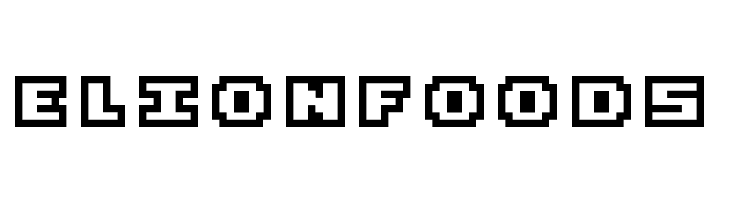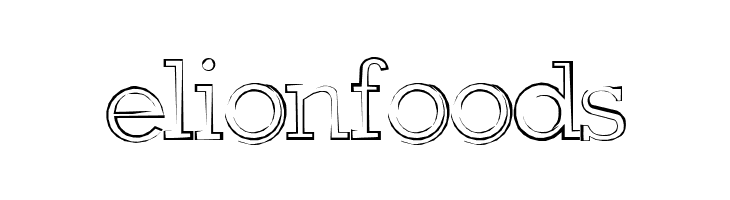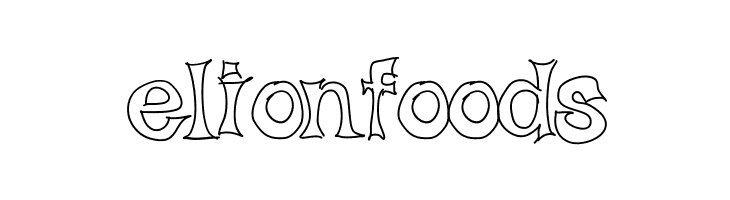
A geometric, hollow font with a futuristic and angular design.
A hollow, geometric font with a futuristic and modern style.
A modern, hollow, outlined font with a futuristic and geometric style.
A modern, hollow, inverse font with geometric and futuristic design.
A geometric, hollow font with angular lines and a modern aesthetic.
A modern, hollow, inverse font with geometric structure and consistent stroke width.
A modern, hollow font with playful and open character designs.
A modern, hollow, and inverse font with a playful yet sophisticated style.
A modern, hollow font with rounded edges and geometric shapes.
A hollow, inverse font with bold outlines and a geometric, modern style.
A playful, heart-themed font with hollow, flowing lines.
A whimsical, heart-themed font with hollow characters and smooth lines.
A geometric, hollow font with a modern and abstract style.
A modern, geometric hollow font with an inverse style and symmetrical forms.
A playful, hollow font with unique loops and curls on each character.
A decorative hollow font with playful loops and rounded terminals.
A hollow, angular font with a geometric and futuristic style.
A bold, hollow, inverse font with a modern, geometric design.
A futuristic, geometric font with hollow, angular letterforms.
A geometric, hollow font with angular lines and a futuristic style.
A bold, hollow geometric font with angular, interconnected strokes.
A futuristic, hollow, and geometric font with sharp edges and a modern style.
A futuristic, hollow, geometric font with a bold and modern style.
A futuristic, hollow, and geometric font with clean lines and rounded edges.
A futuristic, hollow, and inverse font with a geometric and airy design.
A bold, hollow, futuristic font with geometric and angular design.
A futuristic, hollow, and geometric font with a bold outline design.
A modern, hollow inverse font with geometric and futuristic elements.
A futuristic, geometric hollow font with circular motifs and bold, structured characters.
A hollow, geometric font with a futuristic and minimalist design.
A modern, hollow, inverse font with geometric and futuristic design.
A playful, hollow, and dynamic font with a whimsical, outlined style.
A playful, dynamic font with hollow, flowing letterforms.
A modern, hollow, and inverse font with smooth curves and consistent stroke width.
A modern, hollow font with rounded edges and consistent stroke width.